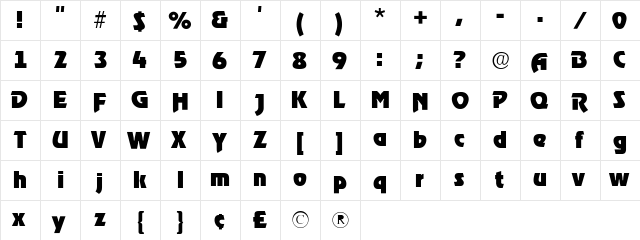
StormHeavy Regular
Design Context for StormHeavy Typeface
StormHeavy offers clean, dependable letterforms without strong stylistic allegiance, making it a practical choice for designers who need flexibility.